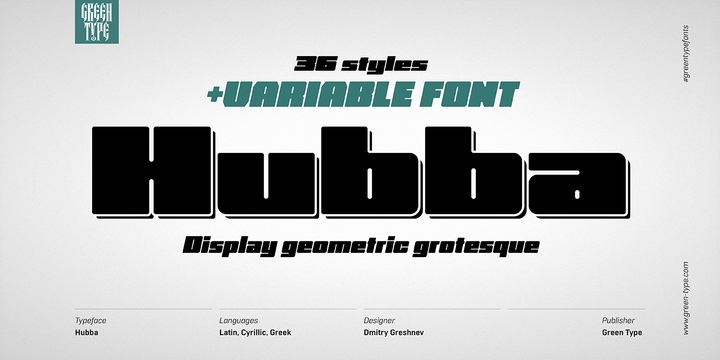
Hubba Font
Hubba Font is perfect for casual brand identities, friendly restaurant menus, playful children's products, approachable service companies, relaxed lifestyle campaigns, community event materials, informal social media graphics, welcoming hospitality branding, and conversational marketing designs.
What makes Hubba Font exciting is its wonderfully approachable character that instantly creates warm connections with audiences through friendly, conversational letterforms that feel like a welcoming smile. The font features rounded, comfortable shapes with an inherently sociable personality that makes every message feel personal and inviting. Its naturally engaging design philosophy embodies the spirit of genuine human connection and casual conversation, making it perfect for brands that want to communicate friendliness, accessibility, and the comfortable authenticity that builds lasting relationships with customers who appreciate honest, down-to-earth communication.
Hubba Font family includes various friendly weights such as Light, Regular, Medium, and Bold variations, often featuring conversational stylistic alternates and welcoming decorative elements. The family may include cheerful symbols, community-focused ornaments, and friendly ligatures that enhance the font's approachable aesthetic, providing designers with comprehensive options for creating engaging typographic compositions that foster genuine human connection and comfortable communication.